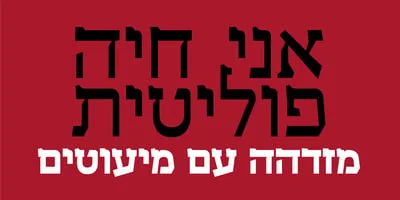
Ein Karem MF Font
Ein Karem MF Font is perfect for spiritual and cultural applications including religious publications, sacred texts, meditation centers, spiritual retreat materials, cultural festivals, ceremonial programs, pilgrimage guides, and interfaith dialogue publications. This serene typeface brings peaceful elegance and spiritual depth to projects requiring reverence and contemplative atmosphere.
What makes Ein Karem MF Font exciting is its harmonious blend of ancient wisdom and contemporary clarity. The font features graceful letterforms with flowing curves and balanced proportions that evoke tranquility and spiritual reflection. Its calming aesthetic and sophisticated character design create a sense of peace and reverence while maintaining excellent readability for both contemplative reading and ceremonial display purposes.
The Ein Karem MF Font family encompasses multiple weights and stylistic variations that preserve the spiritual character while providing versatile design options. From delicate light weights for gentle applications to medium and bold variants for ceremonial emphasis, each style maintains the signature peaceful aesthetic. The family includes decorative elements and alternative characters that enhance spiritual and cultural authenticity.
Spiritual organizations and cultural designers consistently choose Ein Karem MF Font for projects requiring reverent typography and peaceful visual presence. Whether creating religious materials, developing meditation resources, or designing cultural celebration graphics, this font delivers exceptional serenity and visual harmony. Its unique combination of spiritual depth and modern functionality makes it an invaluable tool for professionals seeking to create meaningful work that inspires contemplation and connects audiences with deeper spiritual understanding.